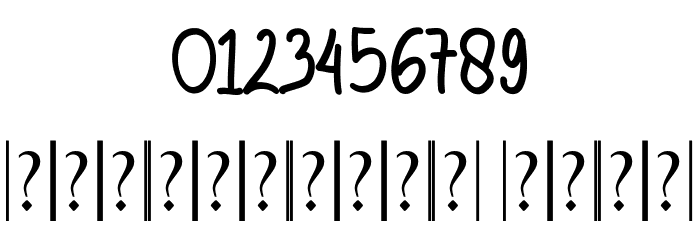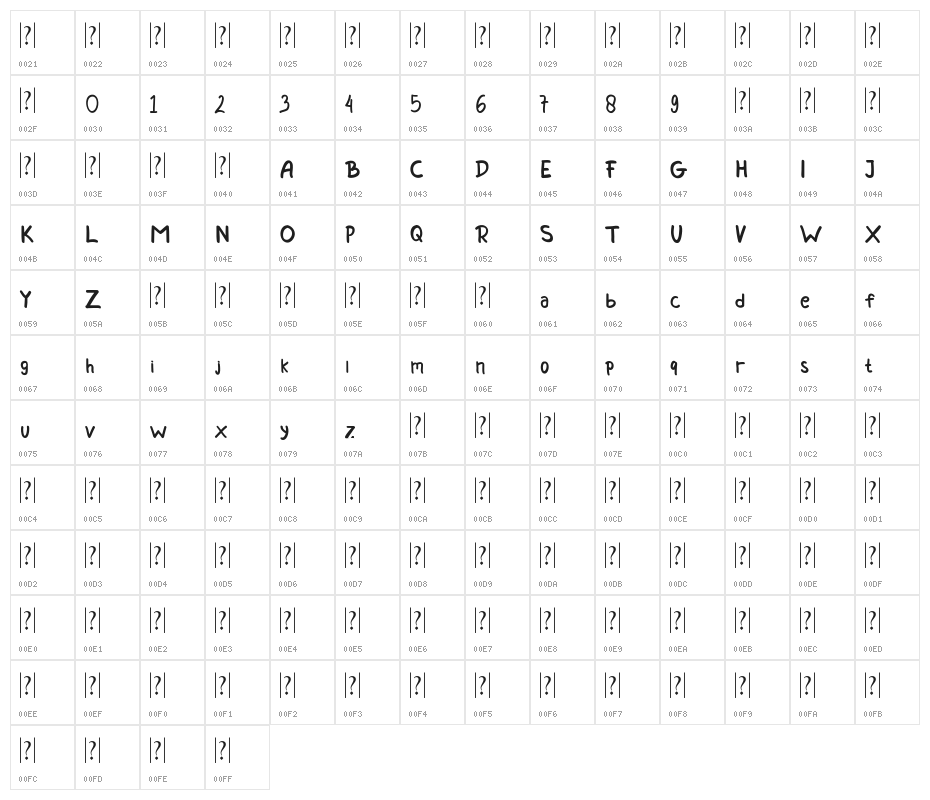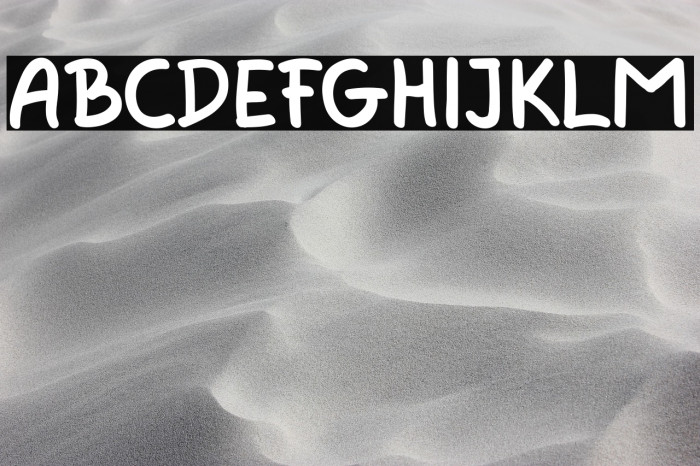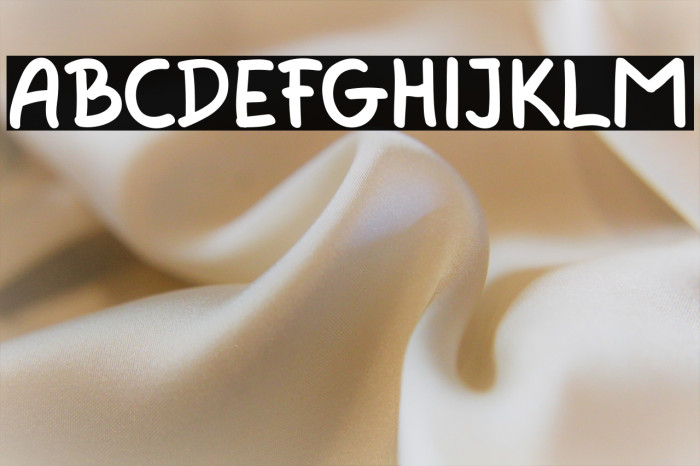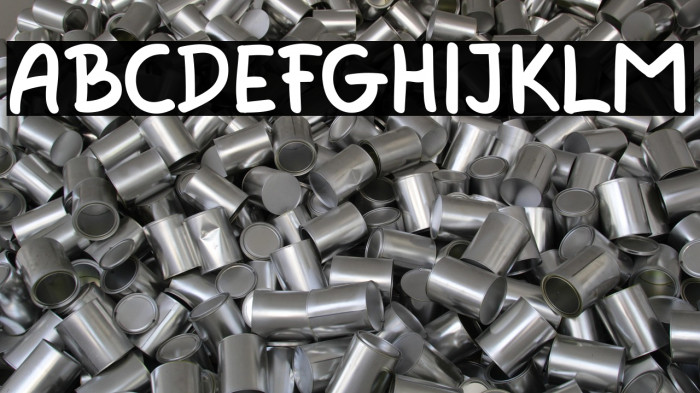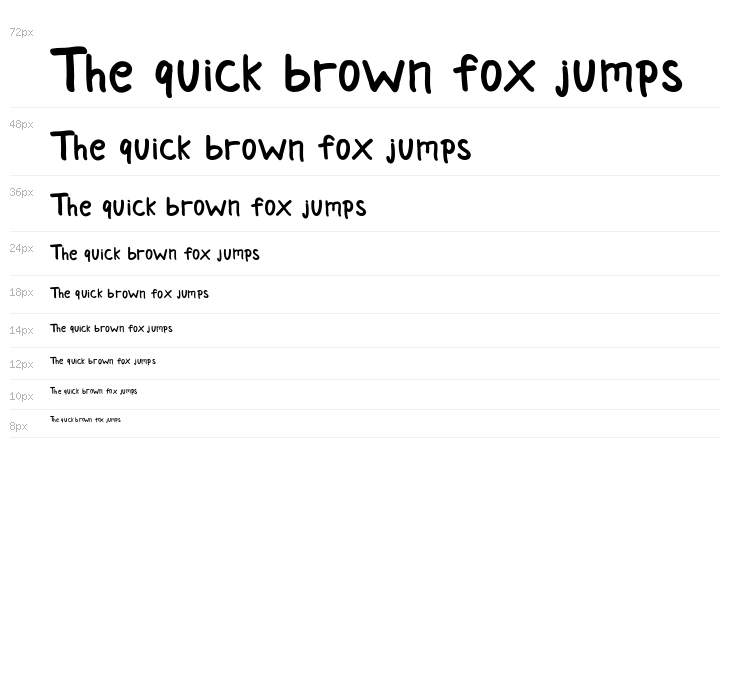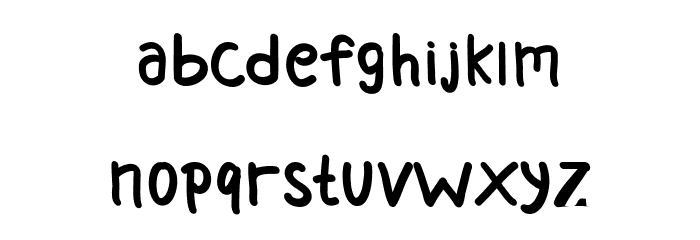
Marion Font
Marion Description
This font features a playful and informal style with rounded edges and a hand-drawn appearance. The letters have a consistent stroke width, giving it a uniform look while maintaining a casual feel. The uppercase and lowercase letters are well-balanced, with a slight slant that adds to its whimsical character. The numerals are clear and easy to read, matching the overall style of the alphabet. Special characters are creatively designed, maintaining the playful theme. This font is ideal for projects that require a friendly and approachable aesthetic.
Overall StyleCasual
Use CaseHeadlines, Logos, Informal Text
Proposed ProjectsGreat for children's books, greeting cards, playful branding, and informal invitations.